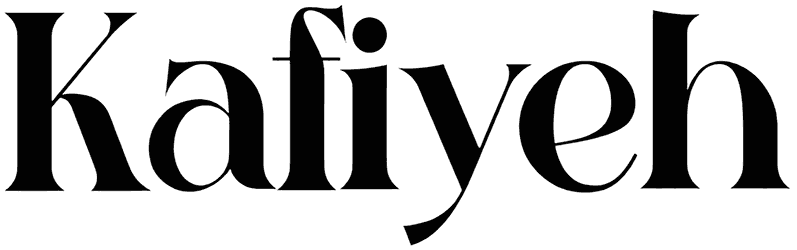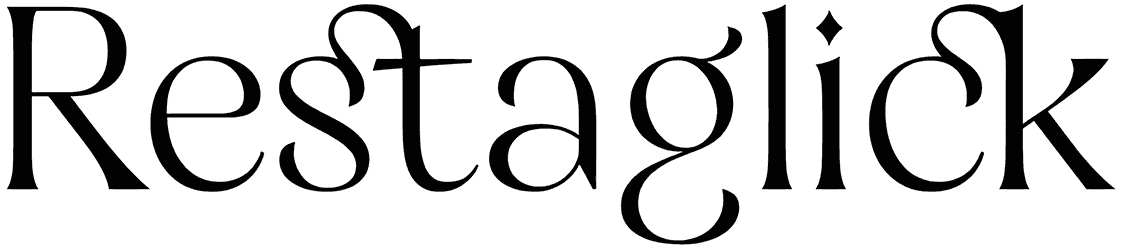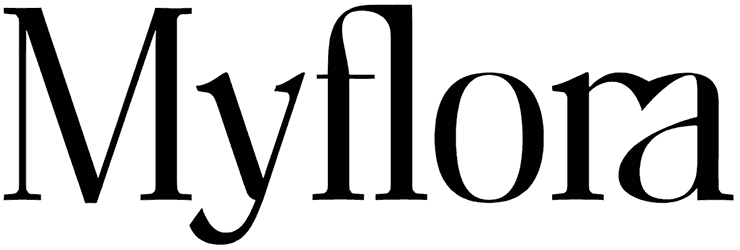
Times New Normal Font
Sometimes, keeping a classic and familiar look can be the best choice for a particular design. Times New Normal is a serif font with delicate decorations that can create exactly this appearance for your text. As a general-purpose font, Times New Normal font is applicable for any purpose like social media posts, invitation designs, merchandise, magazines, and much more.